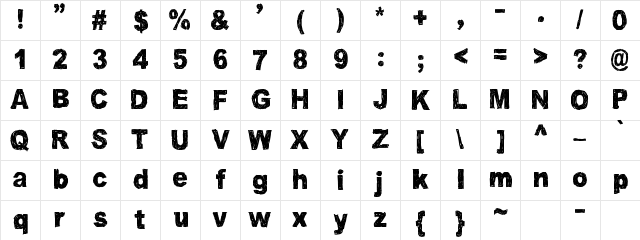
AMC_Sketchy Outines Regular Free Font
AMC_Sketchy Outines Regular
Design Context for AMC_Sketchy Outines
AMC_Sketchy Outines is a composed and adaptable typeface that performs quietly and consistently across a wide range of design contexts.
Pro Tip: Use AMC_Sketchy Outines in both headline and body roles to test its range before committing to a single application.